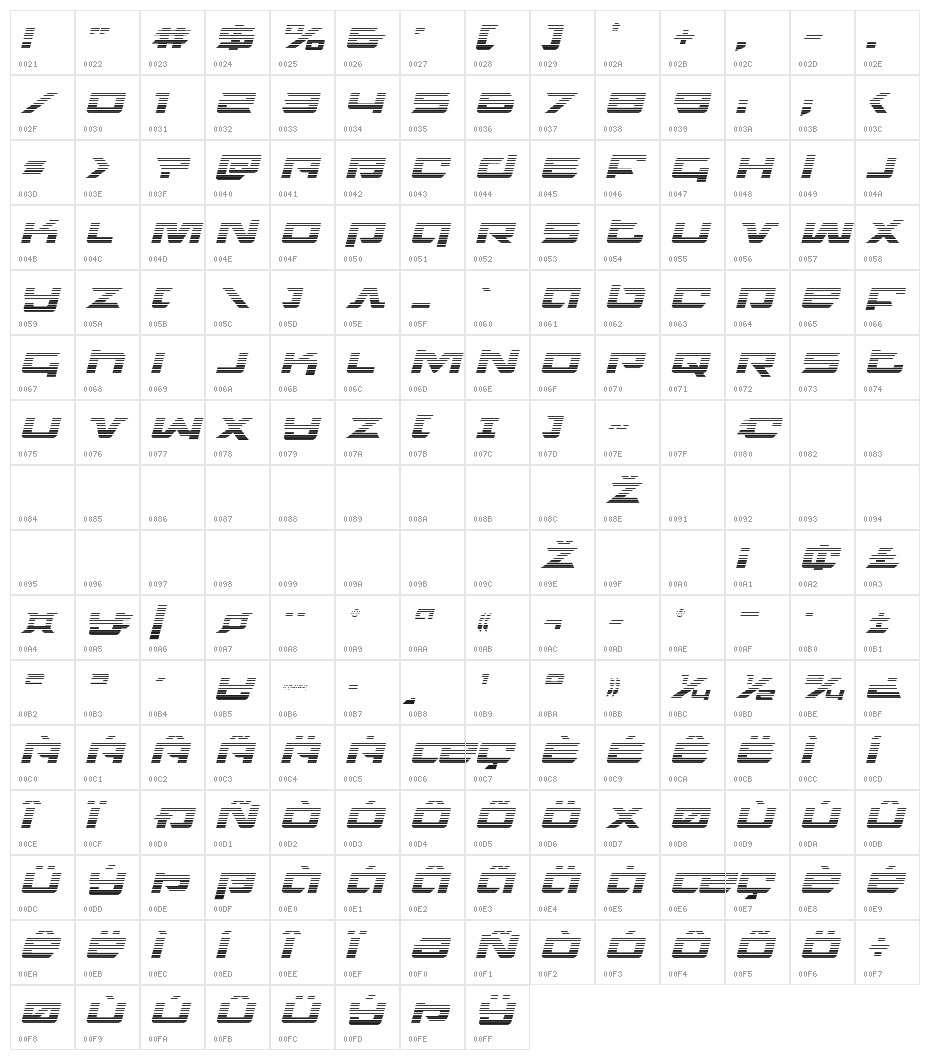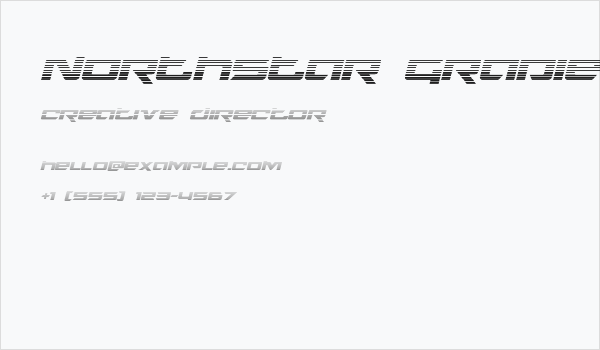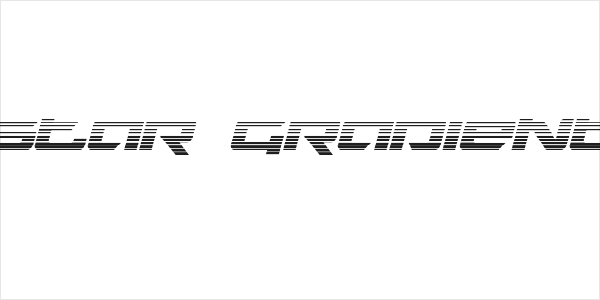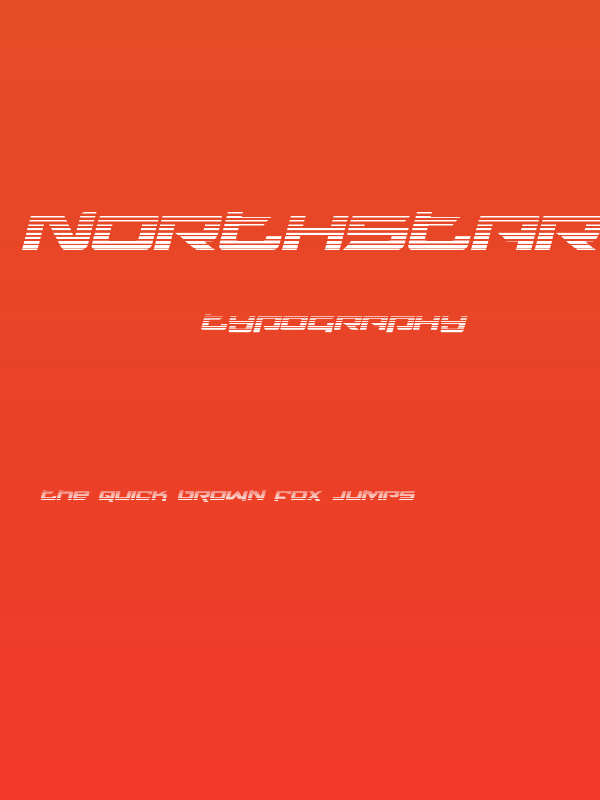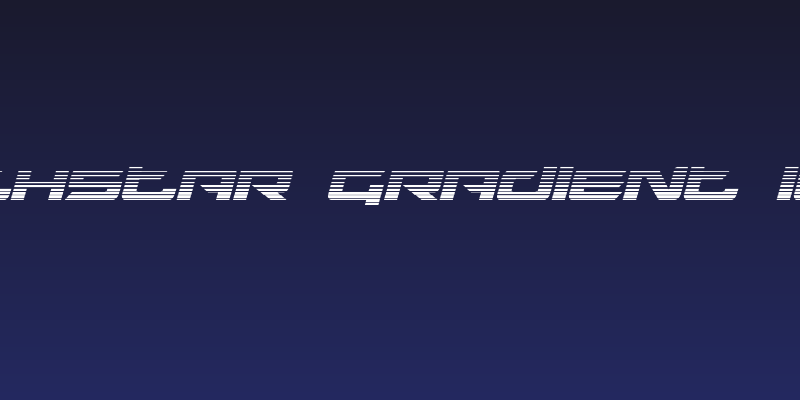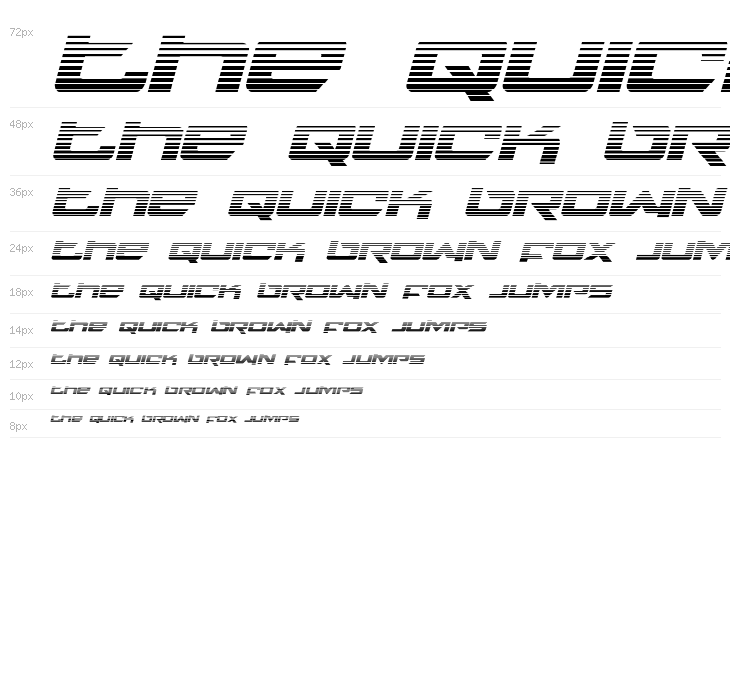
Northstar Gradient Italic Font
Northstar Gradient Italic Description
This font features a futuristic and dynamic design, characterized by its italicized and gradient-like horizontal lines that create a sense of movement and speed. The uppercase and lowercase letters maintain a consistent style, with sharp angles and a sleek, modern appearance. The numbers and special characters follow the same design principles, ensuring uniformity across all elements. The font's unique style makes it stand out, ideal for projects that require a bold and innovative look.
| Proposed Projects | Ideal for tech-related branding, sci-fi themed posters, video game titles, and modern advertising campaigns. |